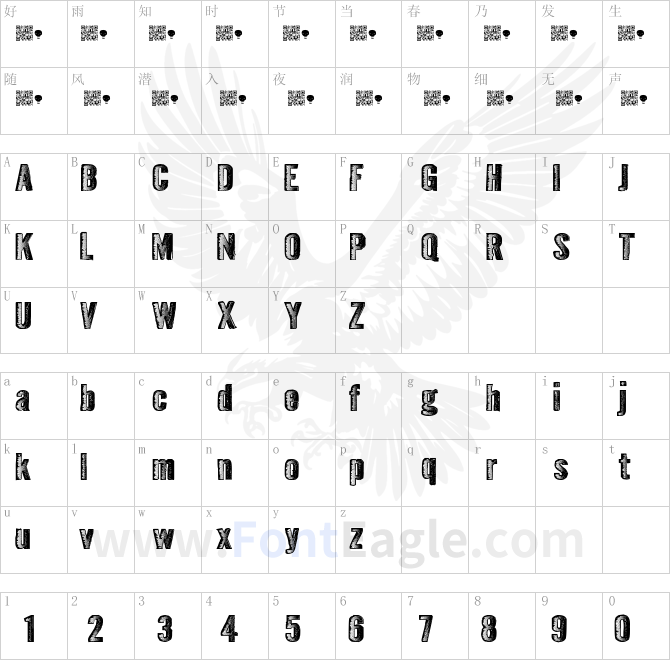
- Font name:BeyondSpace
BeyondSpace is a great font, widely used in graphic design, single-page menu design, poster design and other fields, and is deeply loved by designers.BeyondSpace download.